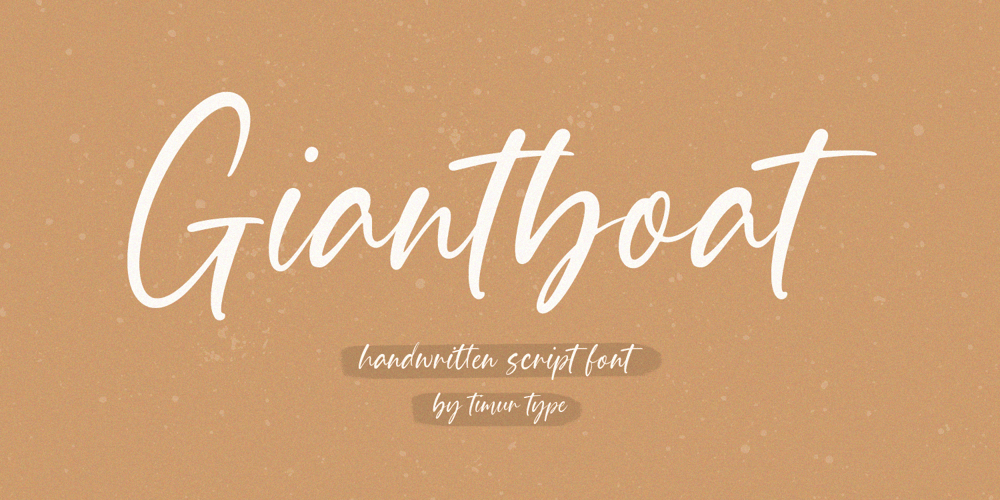
Giantboat Font Family was designed by Wara Sigit Tri Pamungkas and published by Timurtype. Giantboat contains 1 styles and family package options. Proudly presenting: Giantboat, introduced by Timur TypeGiantboat is a handwritten script font.Giantboat is perfect for product packaging, branding projects, magazines, social media, wedding invitations, or just used to express words above the background.Giantboat also has multilingual support.Embellish your designs with our original fonts. Enjoy the font, thank you!